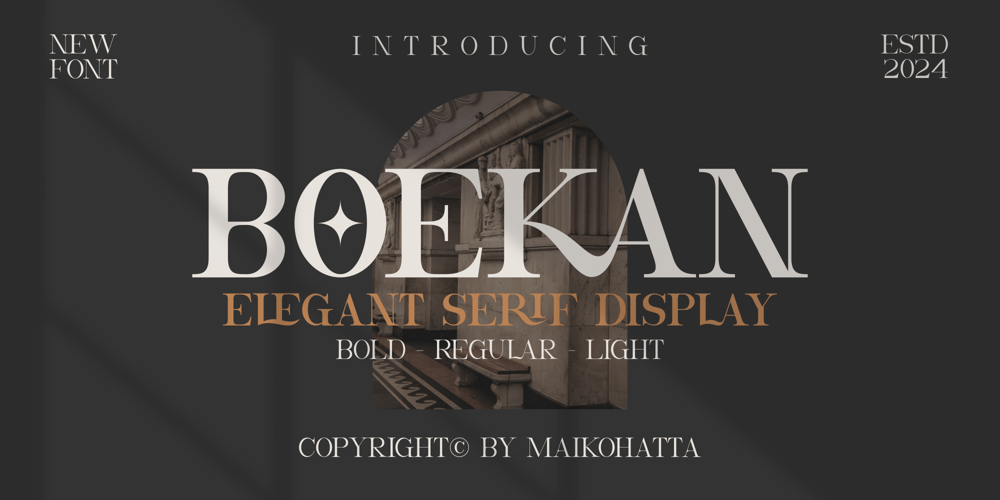
Bokean
Bokean font
Bokean Font Family was designed by Gilang Ternadho and published by Maikohatta. Bokean contains 3 styles and family package options. Introducing our new product Boekan Elegant Serif DisplayThis font is a type of letter that has special characteristics that create the impression of luxury, elegance and firmness. This font involves a series of design elements such as balanced thin and thick lines, gentle curves, and elegant and clean serifs. The sharp corners and fine details of each character create a highly aesthetic impression and exude an air of elegance.